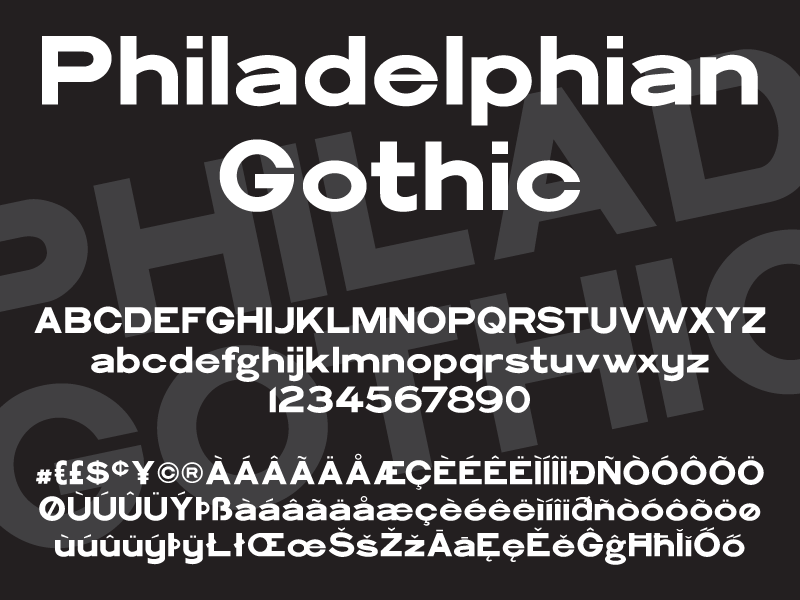
Font name: | Philadelphian Gothic |
Author: | Pilaster Davy |
Note by Pilaster Davy | |
Philadelphian Gothic is inspired by a late 19th century typeface called Philadelphia Lining Gothic. Philadelphian Gothic has some language support and is served free for personal use and as is, but I would encourage anyone downloading and using it to consider a modest donation to the ‘buy the author a beer fund’ using the donate button on the right of this page. For use in commercial projects, a donation should be considered mandatory (and good manners). I hope you enjoy using Philadelphian Gothic as much as I have enjoyed making it. (Note: I’m still new to font making, so comments and suggestions for improvements are most welcome and will be heeded. ;-) Thanks once again to the mods and staff of Dafont for their time and patience without which this wouldn’t have been possible.) Pil |